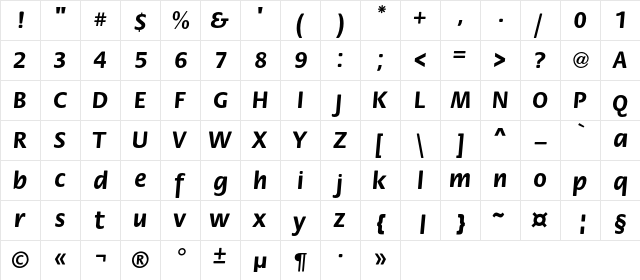
FiestaC Bold
Design Context for FiestaC Typeface
FiestaC is a composed and adaptable typeface that performs quietly and consistently across a wide range of design contexts. Its bold stroke weight gives it real presence on the page.
Pro Tip: Pair FiestaC with a font of contrasting weight or personality to build a more expressive typographic hierarchy.